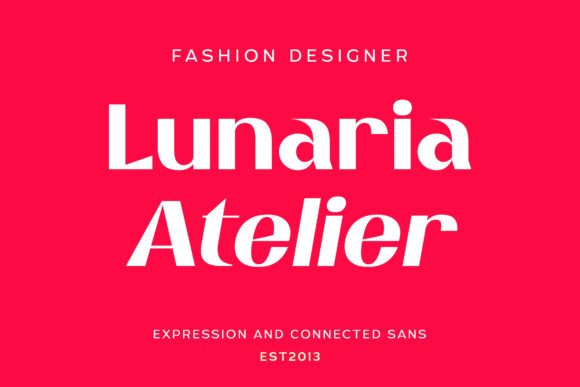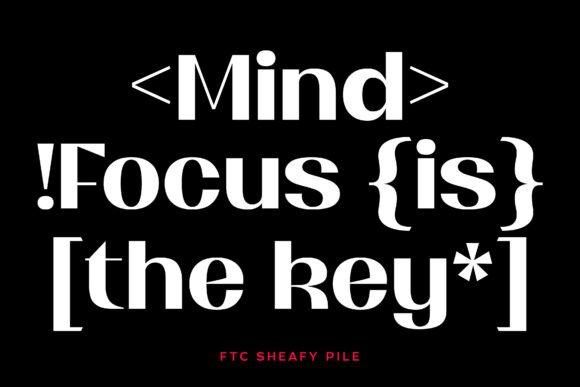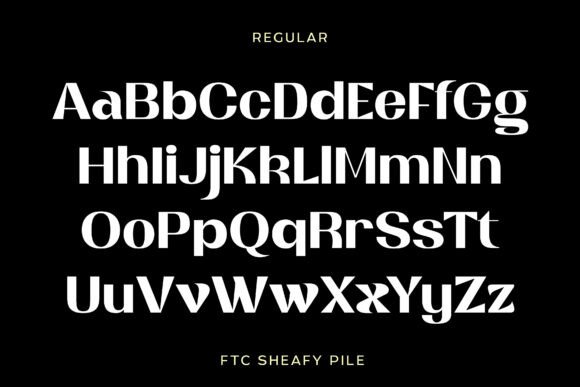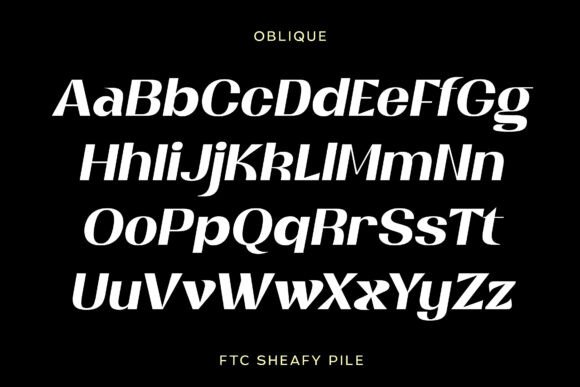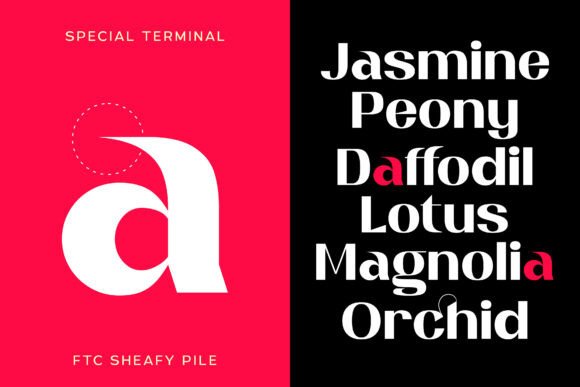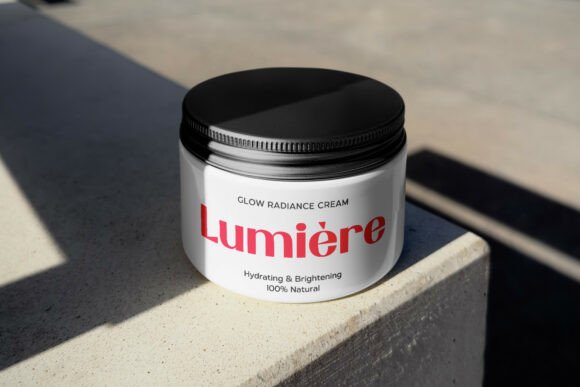
Introduction to Sheafy Pile Font
Sheafy Pile is a sans-serif display font that combines unique elements of expression and connection.
Its distinct style is designed to stand out while maintaining a clean and modern appearance Perfect for branding purposes, Sheafy Pile delivers a balance of creativity and professionalism, making it ideal for logos, packaging, and other visual identity projects.
Key Features of Sheafy Pile Font